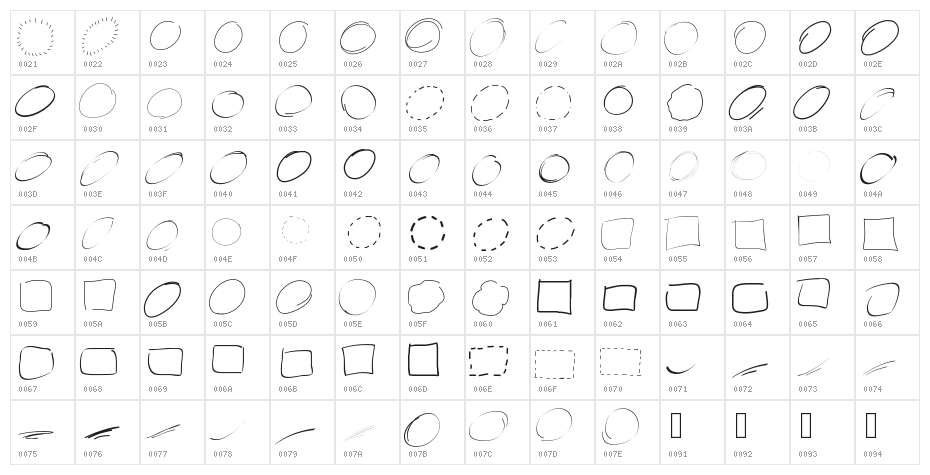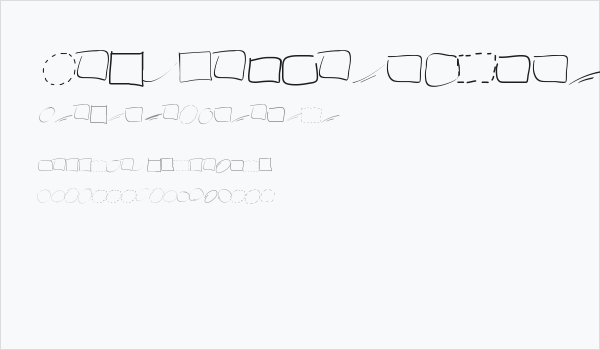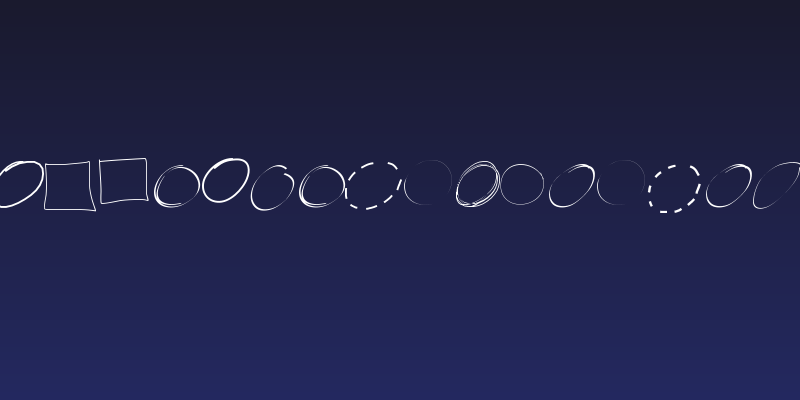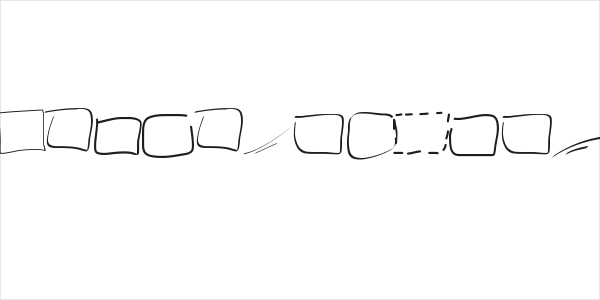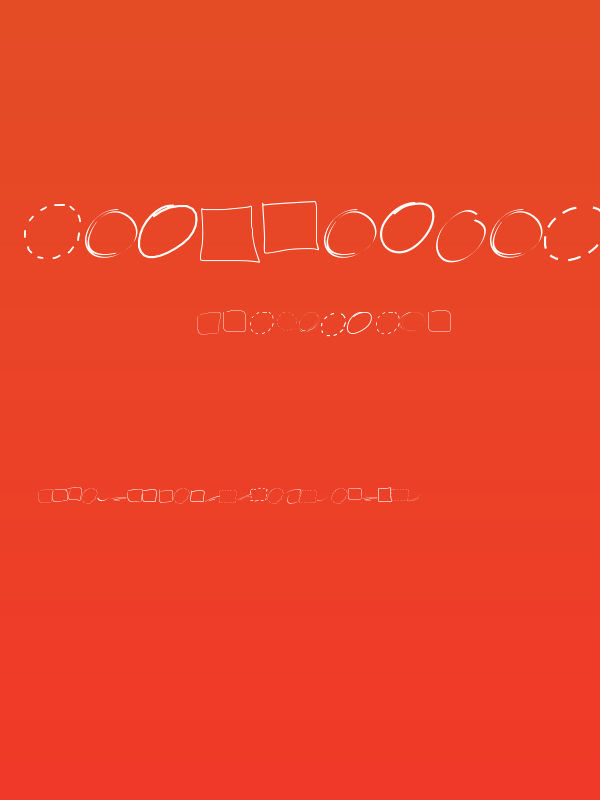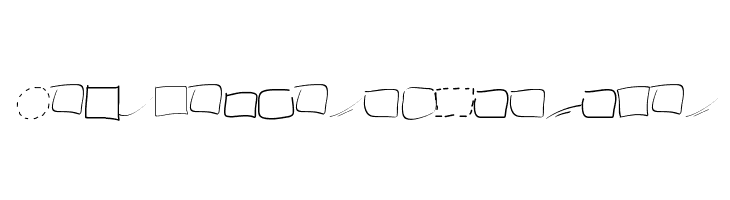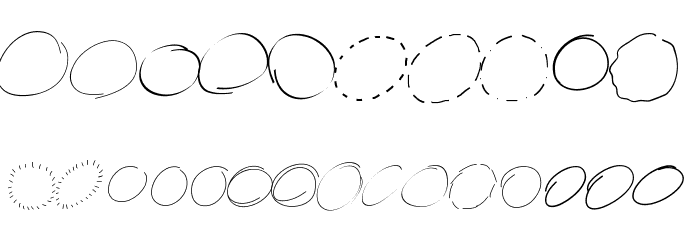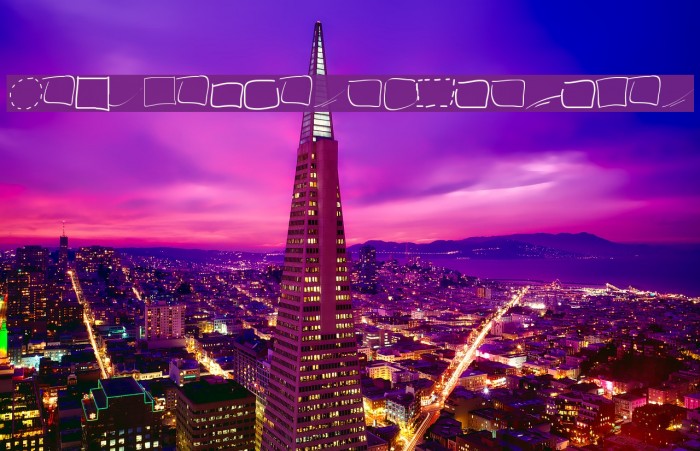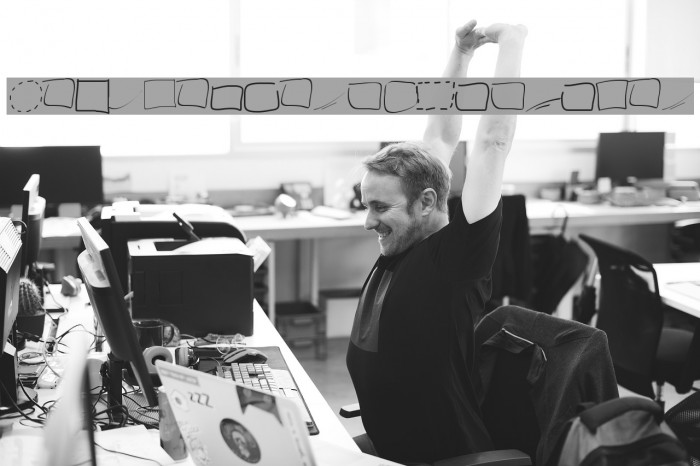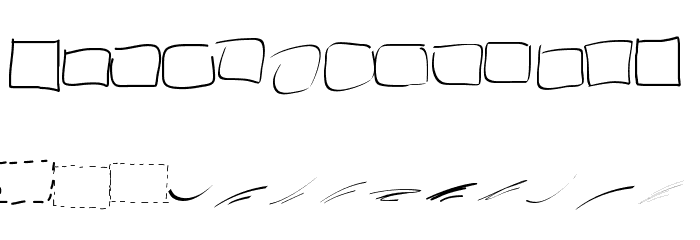
PeaxWebdesigncircles Font
PeaxWebdesigncircles Description
A collection of hand-drawn geometric shapes including circles and squares, with various line styles such as solid, dashed, and sketchy outlines. The shapes have an informal, playful, and organic appearance, with irregularities and varying stroke thicknesses.
| Overall Style | Decorative, Playful, Hand-drawn |
| Use Case | Decorative elements, backgrounds, web graphics, creative layouts. |
| Proposed Projects | Web design accents, playful infographics, creative presentations, children's materials, decorative borders. |